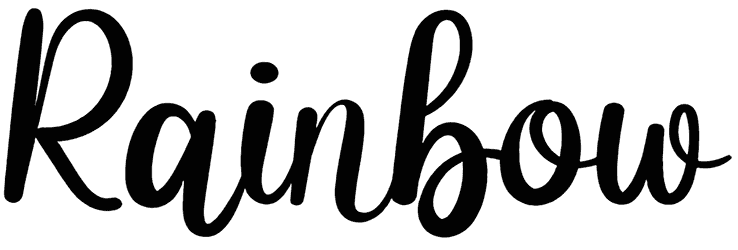
Rainbow Font
You can decorate any design with any subject with modern manuscript words. This memorable item, which is called Rainbow, is a nice and soft handwritten font with a realistic form. For many designs like posters, logos, books, and so on, you can use this script font and show off your creativity.